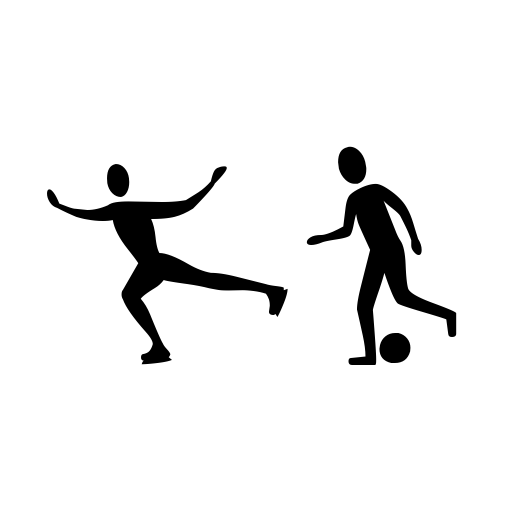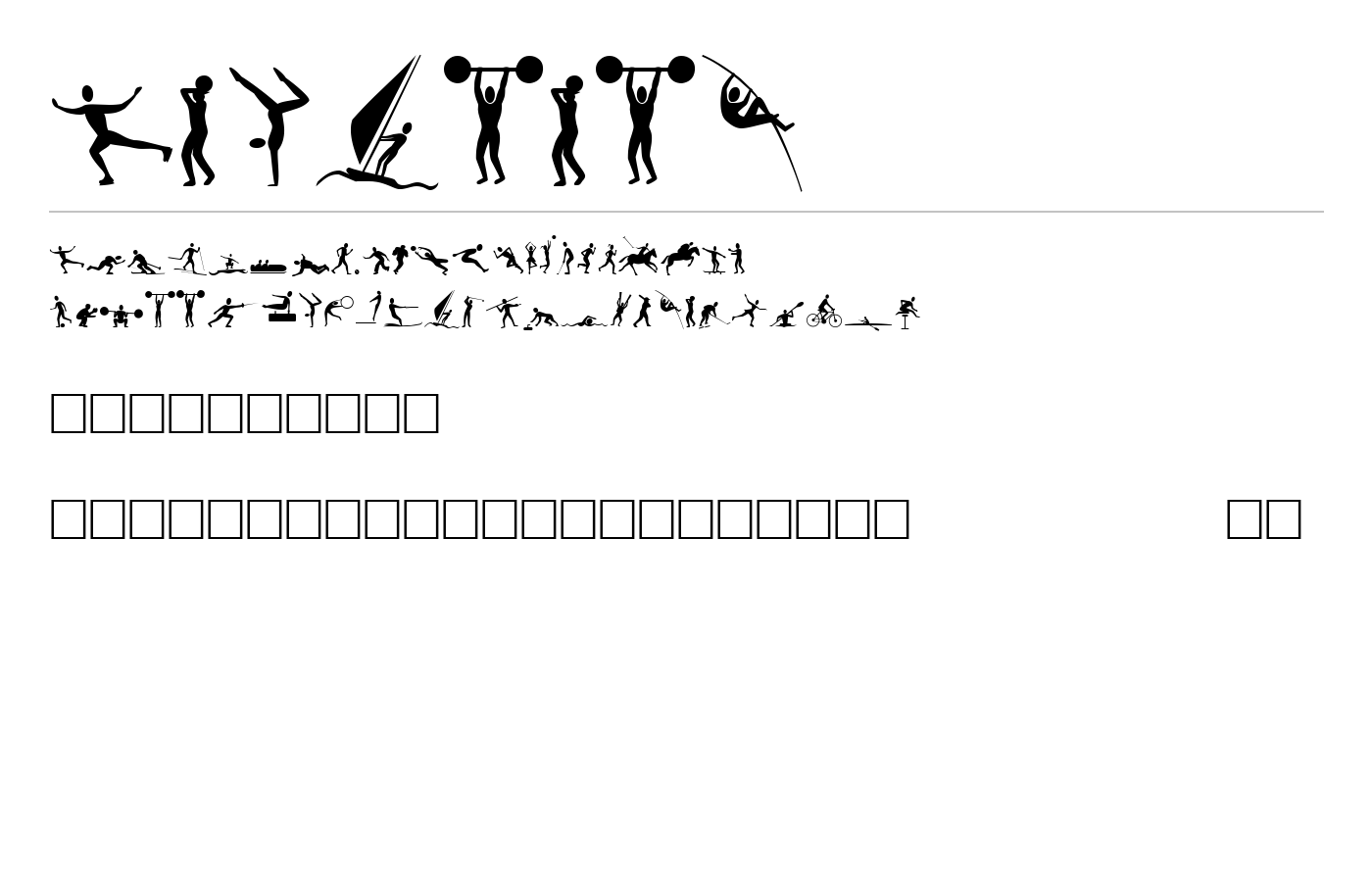
Athletes Font is a unique pictorial typeface composed of silhouettes depicting various sports and athletic activities. It brings an energetic and dynamic vibe, perfect for sports-related branding, event promotions, and playful design projects where visual storytelling through icons is key. This font works especially well in logos, posters, and websites that want to convey movement and vitality.
Athletes Font